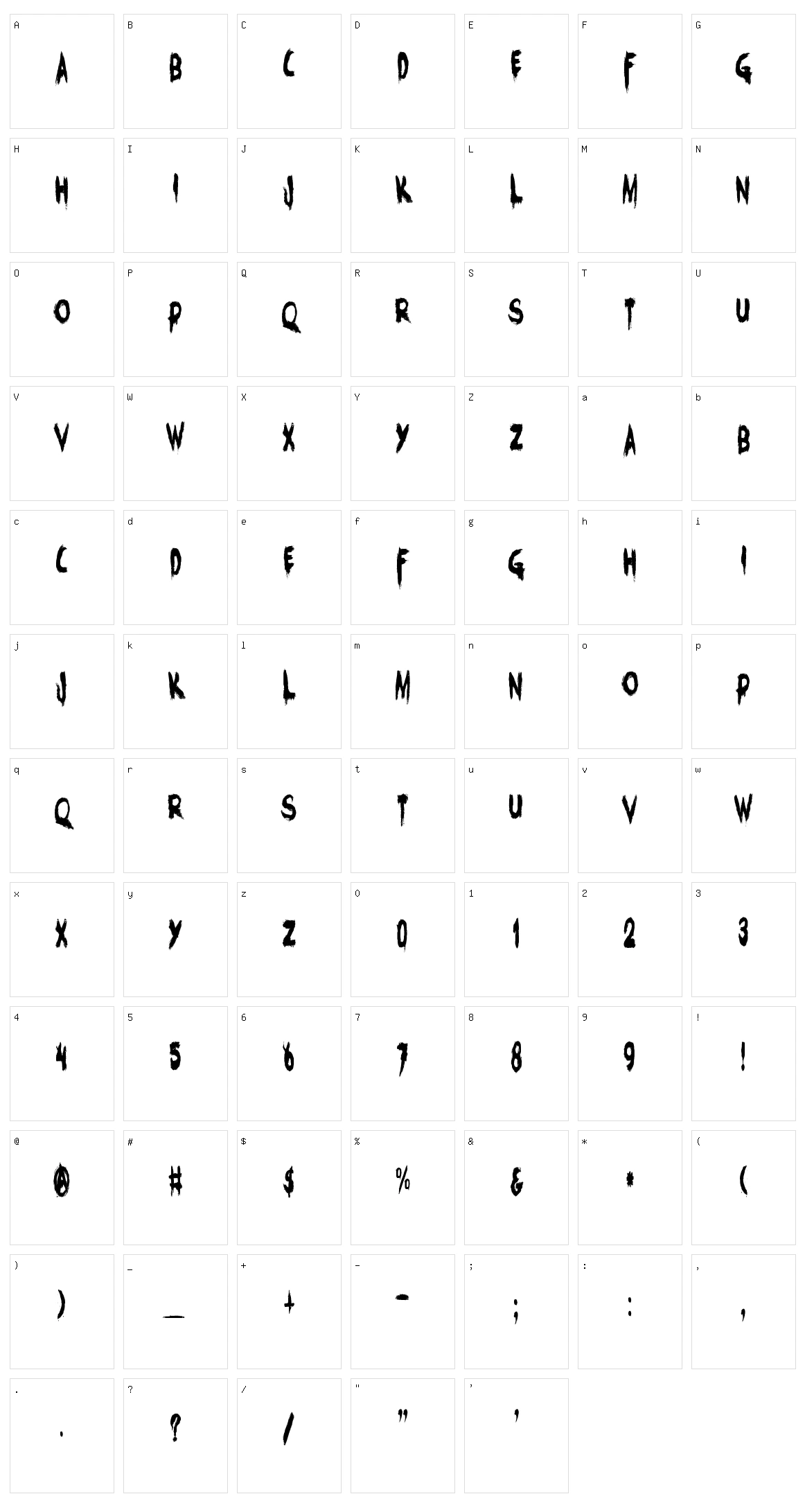
The free font Charons Obol is carefully designed by Hanoded, showcasing a thoughtful balance of creativity and usability and falls under the Horror font style. When you download the ZIP file, it contains only 260.4 KB of font files, making it lightweight and quick to download. Please review the license details below to understand permitted usage and distribution rights. If license information is not available, we recommend using this font for personal projects only or contacting the author directly for commercial usage permissions.